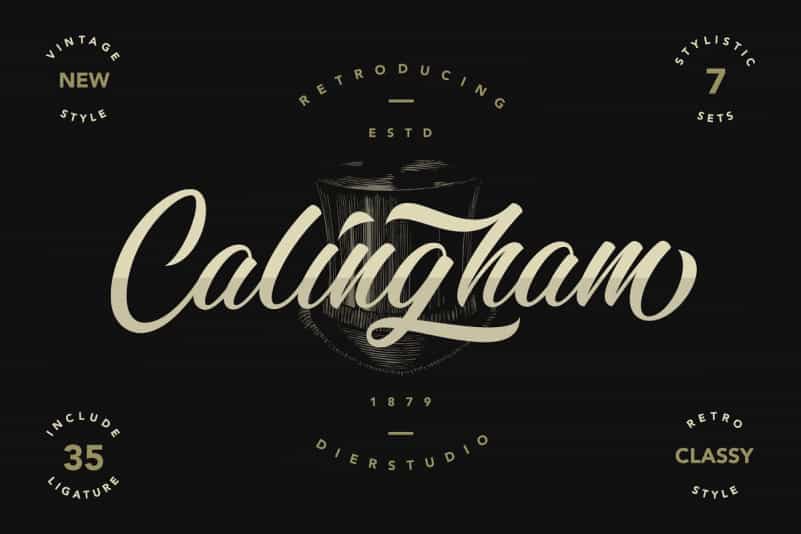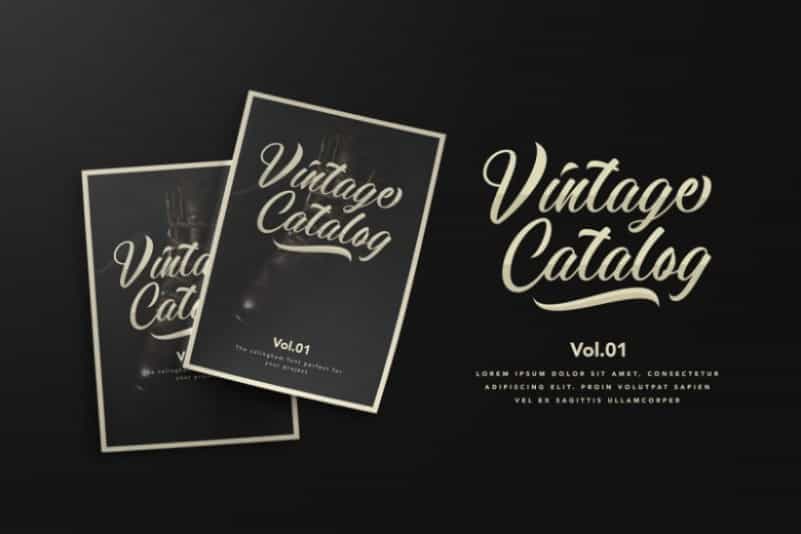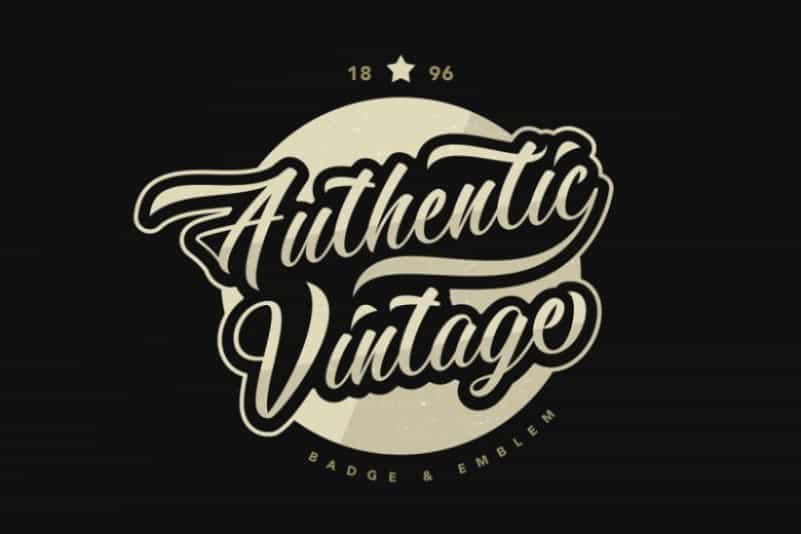
Introducing Calingham Font!This is a classy womanly font. It consists of wonderful swashes that will make your creations look very girly. It is created and distributed by Dierstudio.